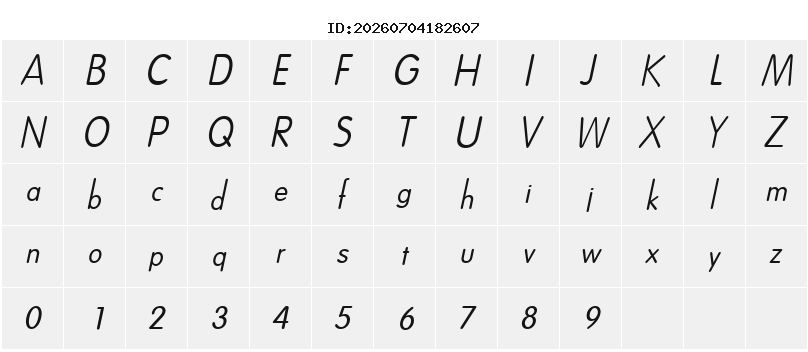
Dreamspeak Preview
• Font Name: Dreamspeak
• Font ID: DTP-Dreamspeak Italic
• Full Font Name: Dreamspeak Italic
• PostScript Name: Dreamspeak
About Dreamspeak.ttf
Dreamspeak.ttf is a modern, elegant sans-serif font designed for ultimate readability and visual harmony. Perfect for branding, headlines, web design, and print materials.